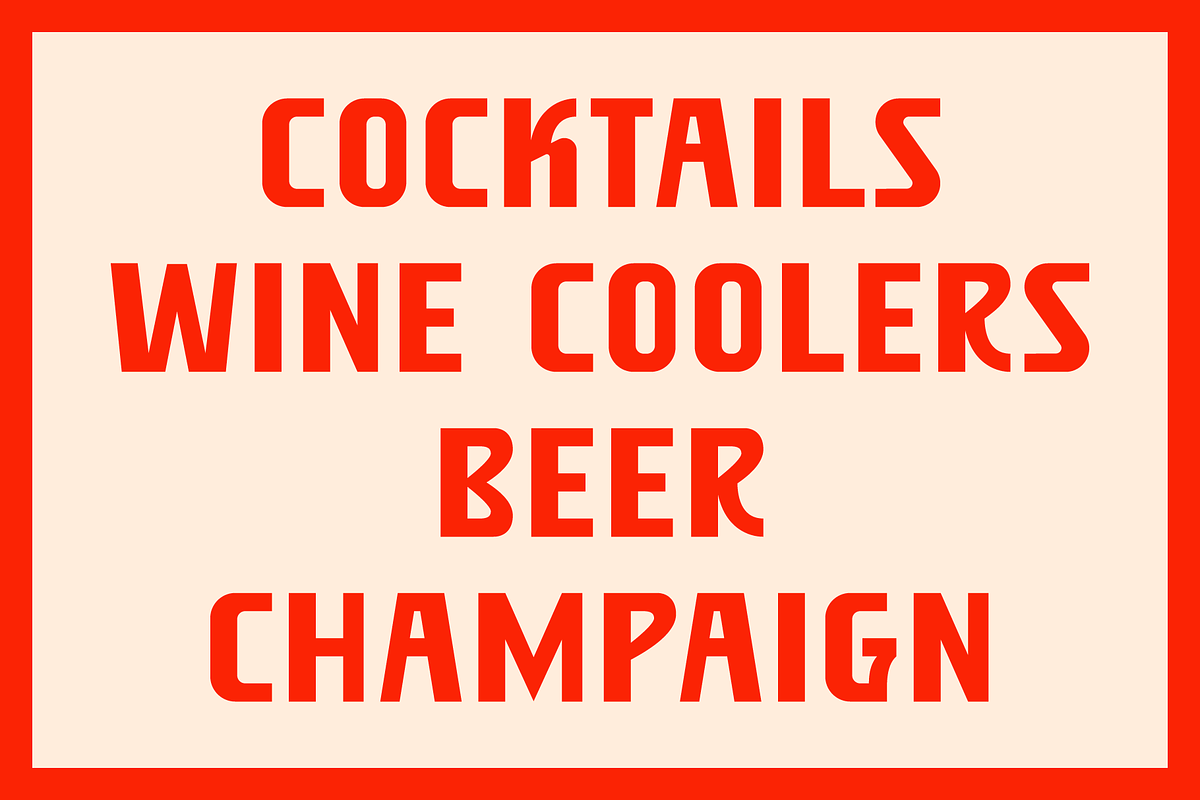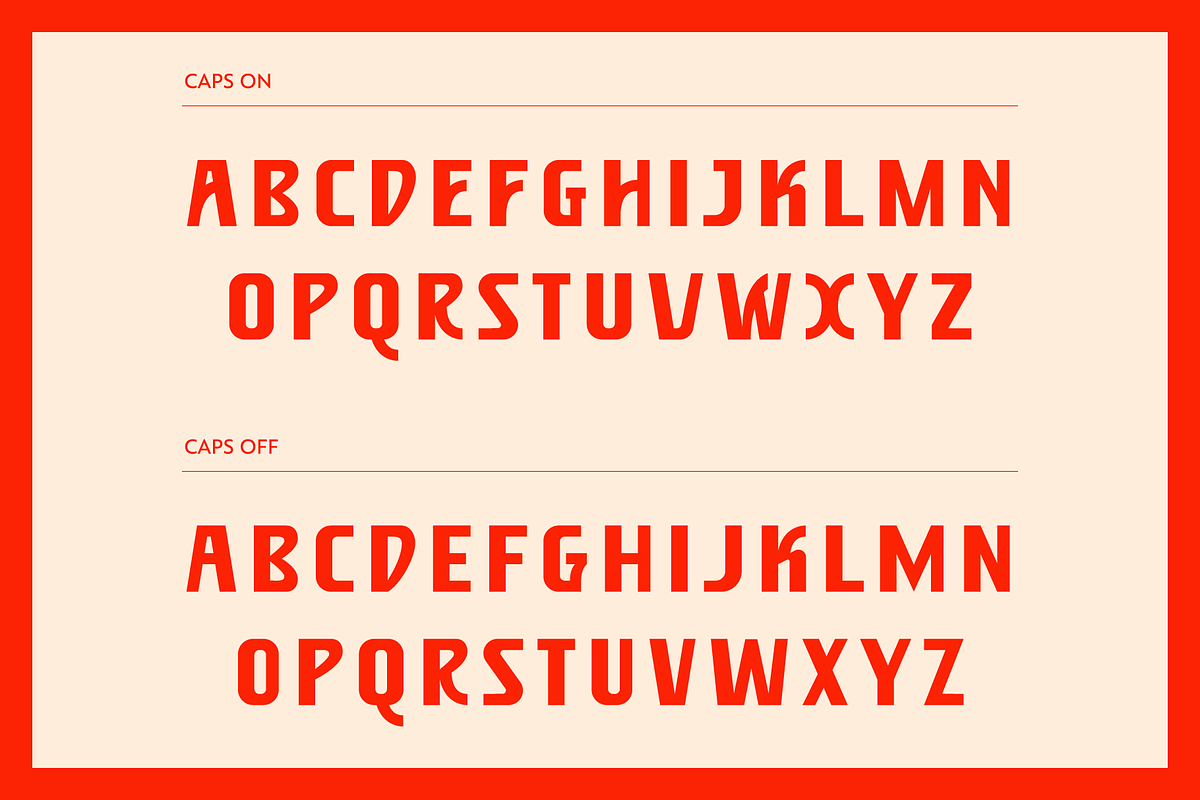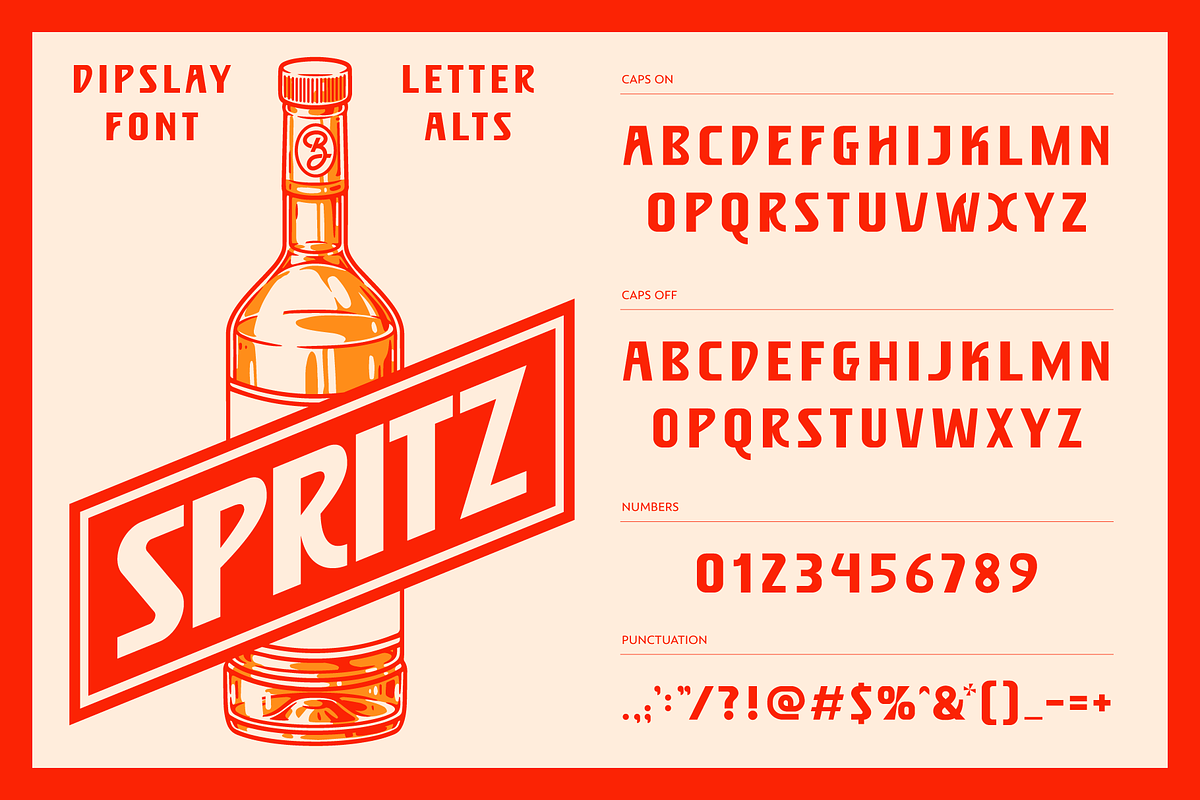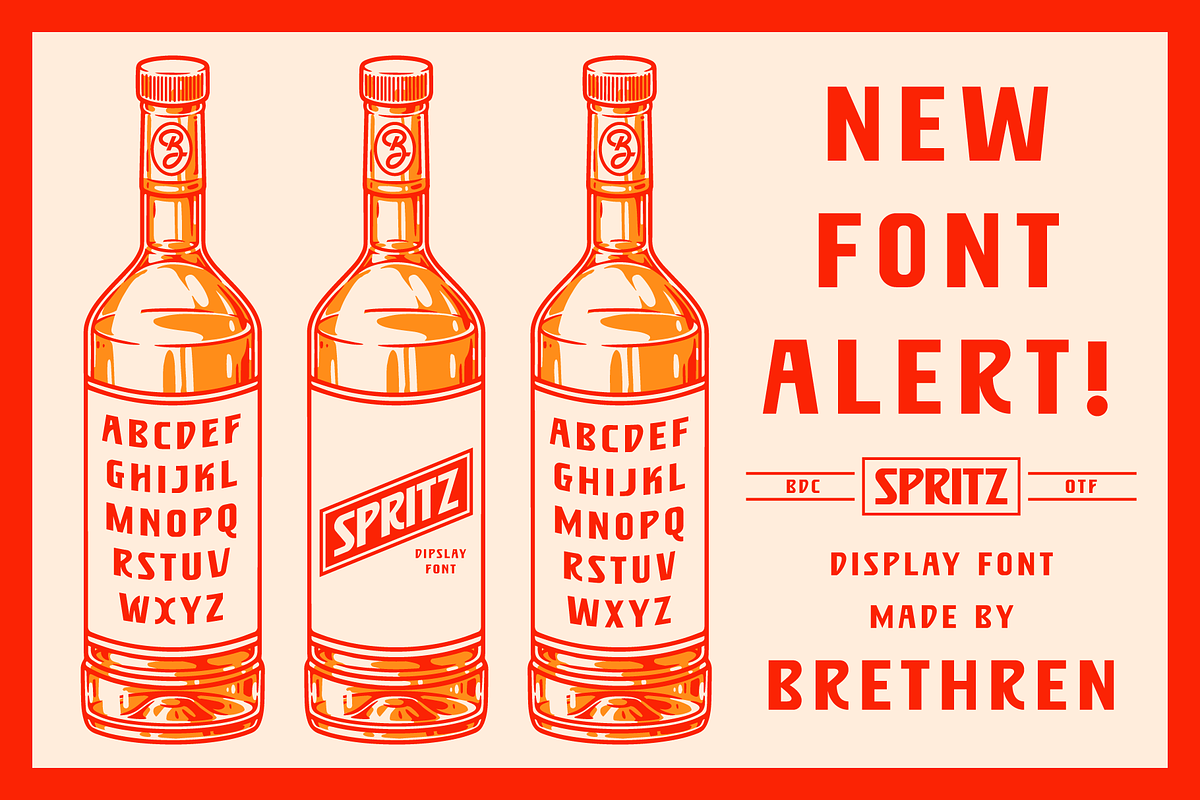
BDC Spritz Display font
BDC Spritz is a vintage inspired typeface with mid-century and deco roots that lends itself to clean packaging with an elevated elegancy but can also fit into a retro world that feels more 1980's. Pairs well with scripts and has quit a few alternative letters if you want a more straightforward letterform opposed to the curved legs, arms and crossbars that help make branding and packaging of a product a little bit more unique. Includes punctuation and numbers.